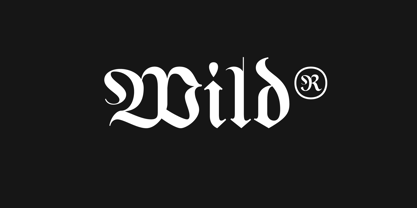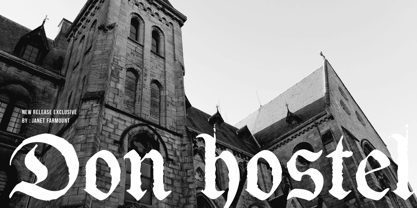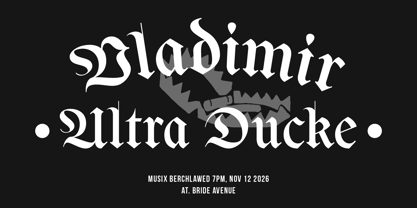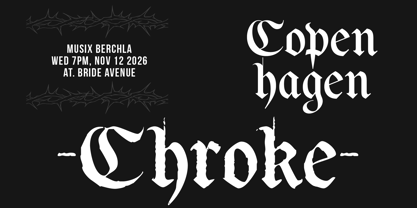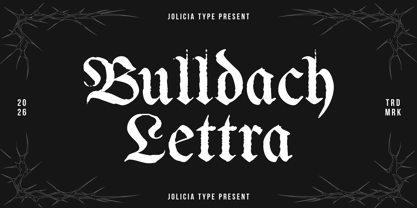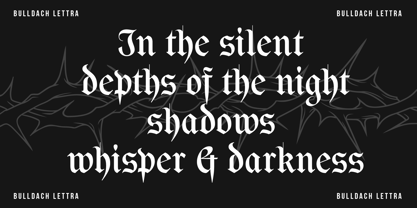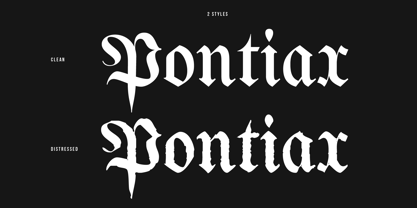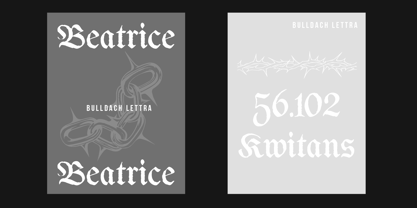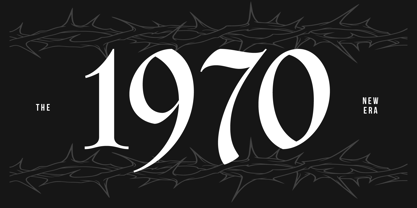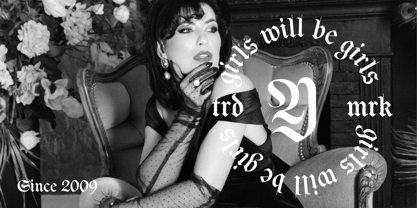
Bulldach Lettra
by Jolicia Type
The Bulldach Lettra Font Family was designed by Laire Banyu and published by Jolicia Type. Bulldach Lettra contains 2 styles and family package options. More about this family
Bulldach Lettra is a striking blackletter typeface that embodies a bold, classic, and expressive character. Drawing inspiration from traditional gothic typography, it features sharp letterforms, strong contrasts, and intricate details that evoke a sense of history while maintaining a powerful visual presence. This font is available in two distinct styles, providing flexibility for a wide range of design applications. The clean style offers a refined and polished look, with solid, well-defined letterforms that are perfect for logos, headlines, and branding that require a classic yet professional appearance. In contrast, the distressed style delivers an old-school aesthetic with rough textures and worn effects, creating an authentic vintage feel reminiscent of prints from a bygone era. Bulldog Lettra is ideal for various creative projects, including music posters, streetwear branding, product labels, and any design that aims to convey a dark, classic, and bold identity. The combination of gothic influence with both clean and distressed styles makes this typeface versatile, timeless, and rich in character.
Designers: Laire Banyu
Foundry: Jolicia Type